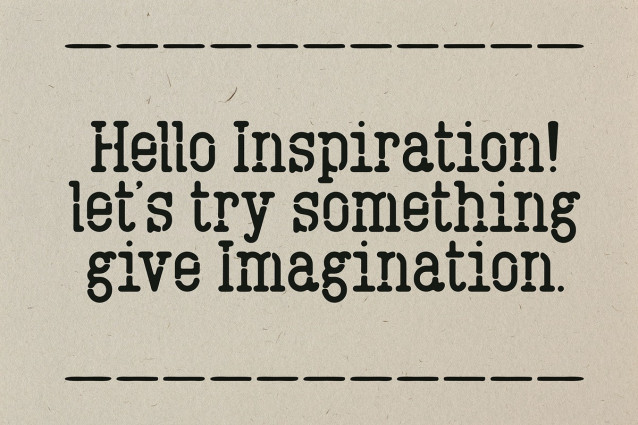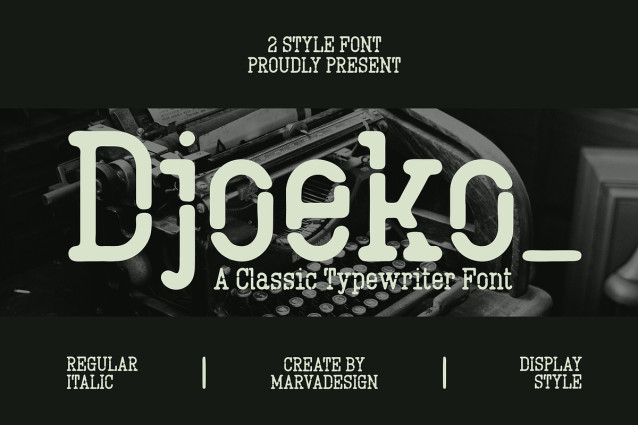
Djoeko Typewriter Font
Djoeko Typewriter Font is a bold and authentic display font. The font is suitable for any branding project like logo, Template Design, Product and many more. outstanding in a wide range of contexts.